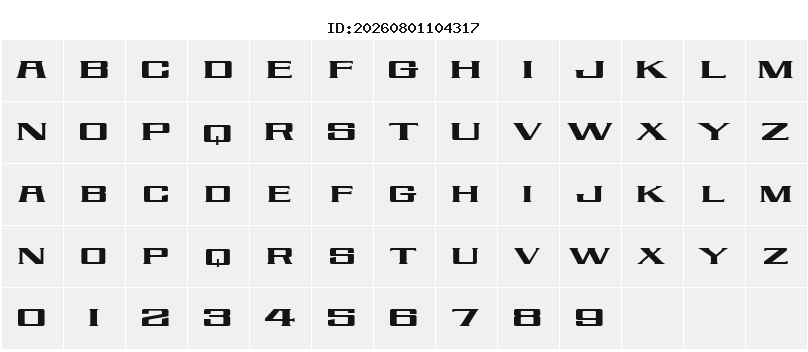
• Font Name: LHF Ortlieb
• Full Font Name: LHF Ortlieb
LHF Ortlieb.ttf is a modern, elegant sans-serif font designed for ultimate readability and visual harmony. Perfect for branding, headlines, web design, and print materials.